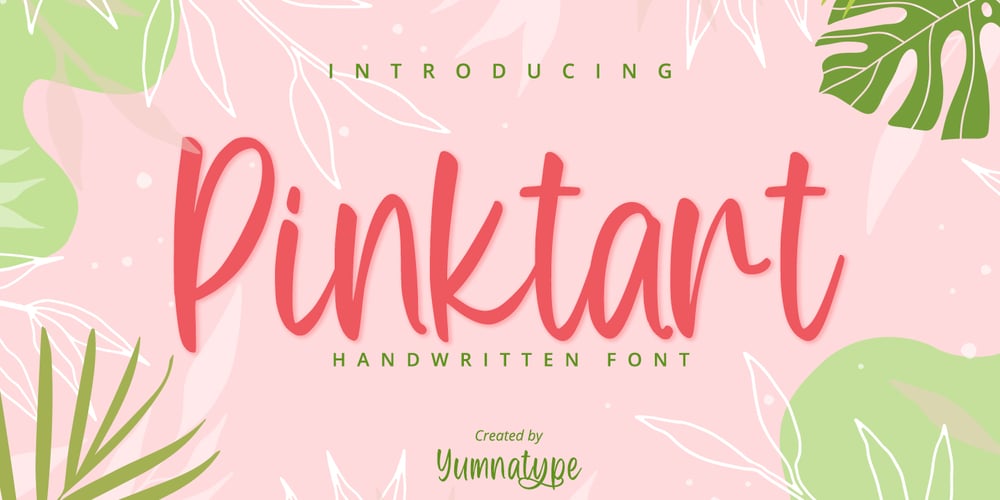
Pinktart Font Family was designed by Donis Miftahudin and published by Yumna Type. Pinktart contains 1 styles and family package options. Pinktart is a lovely handwritten font with a natural and unique design will make your project more beautiful. The font is suitable for your branding project, printing, logos dan wedding.Included:Pinktart (OTF)Features: Beautiful Ligatures Alternate Multilingual Support PUA encoded Numeral and Punctuation by Yumnatype